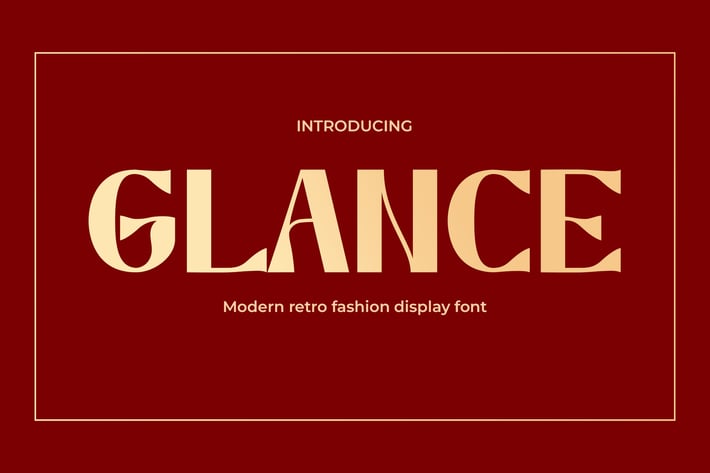
Glance - A Modern Twist on Vintage Retro Font
Glance is a modern interpretation of a classic vintage font, perfect for adding a touch of nostalgia to any design project. Its sleek and stylish design with a hint of 70's flair is ideal for music and fashion promotions, branding, advertising, and marketing campaigns. Glance will bring your project to life with its versatile and distinctive look that captures the essence of both the past and the present. Whether you're reviving retro style or looking to add a chic touch to your design, Glance is the perfect choice for a modern twist on a vintage font.